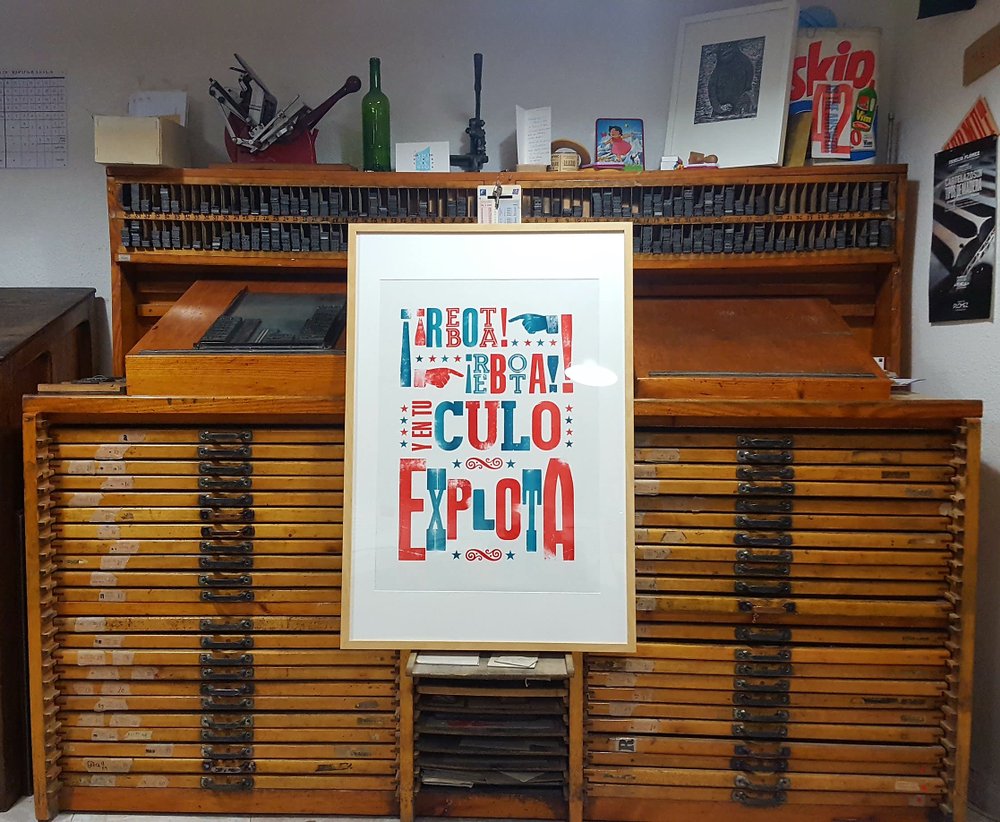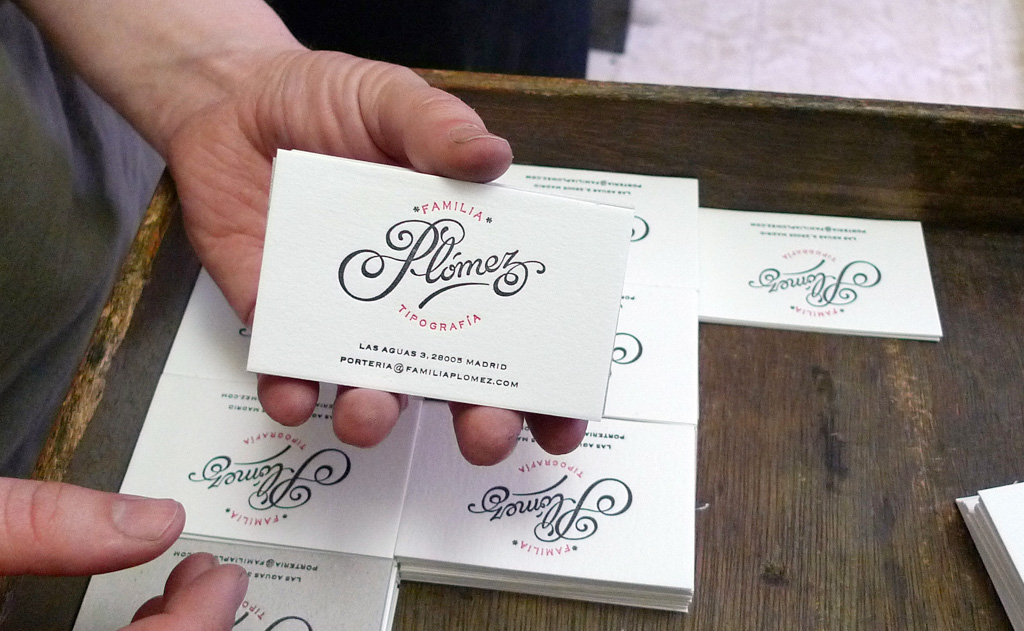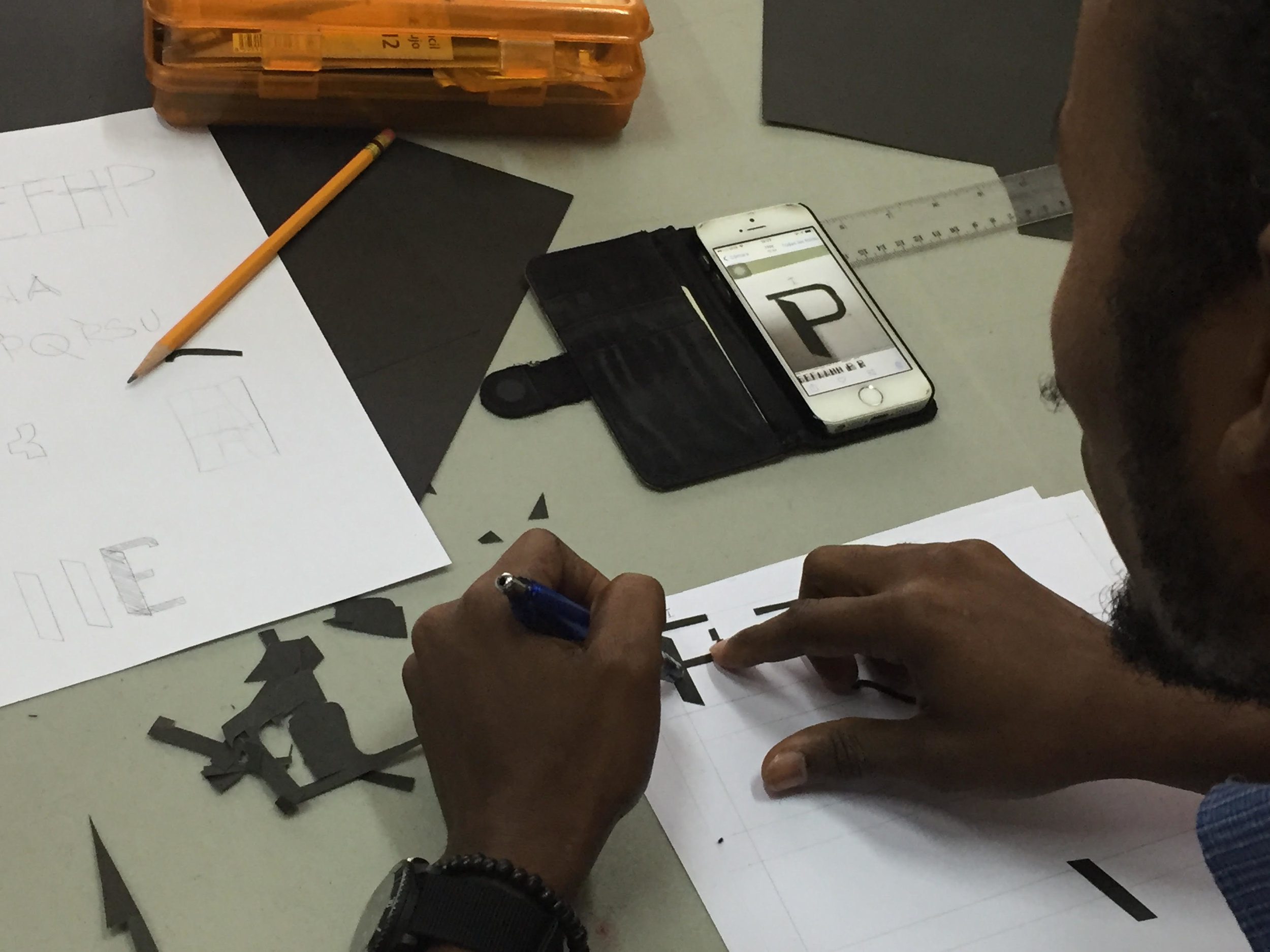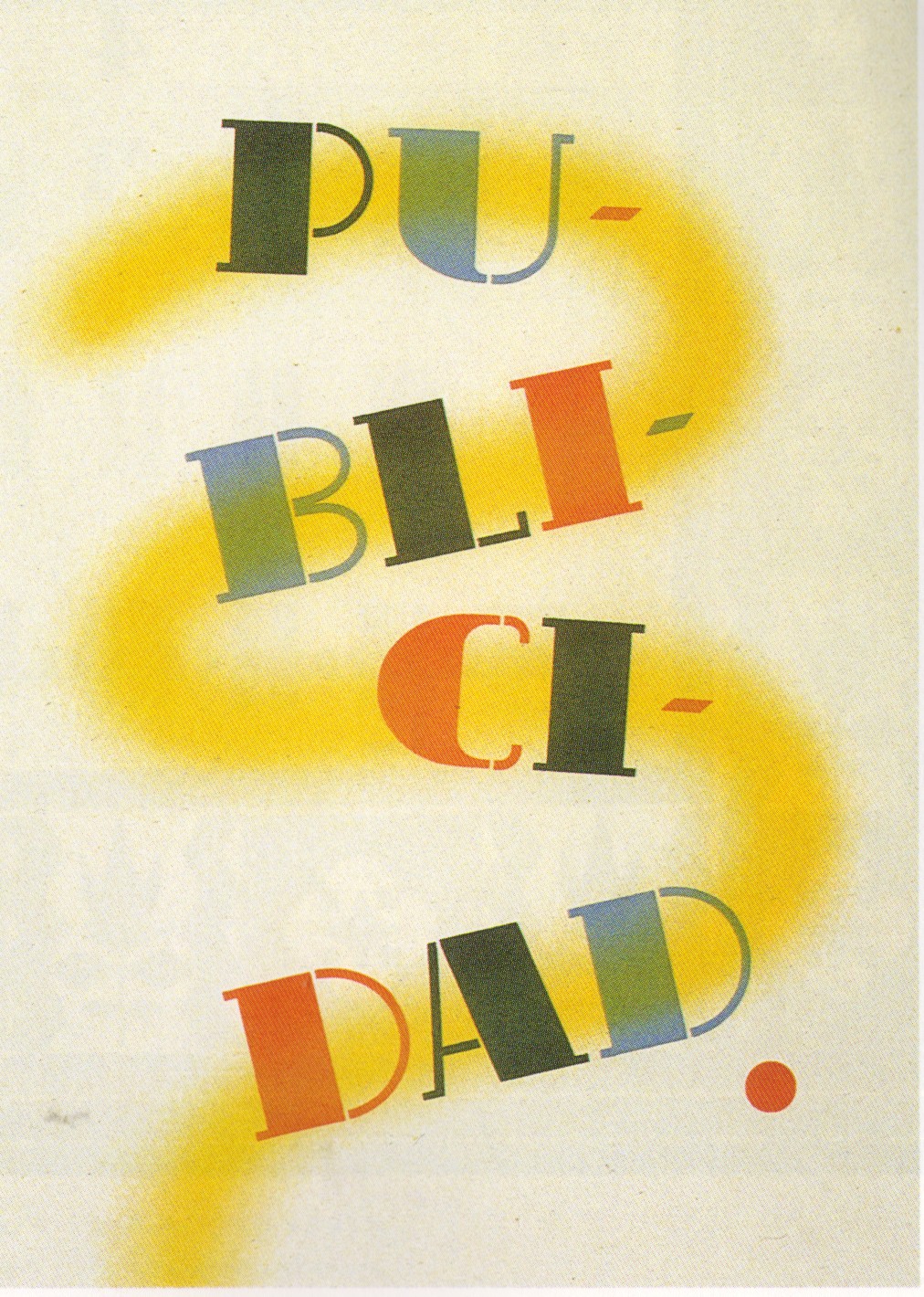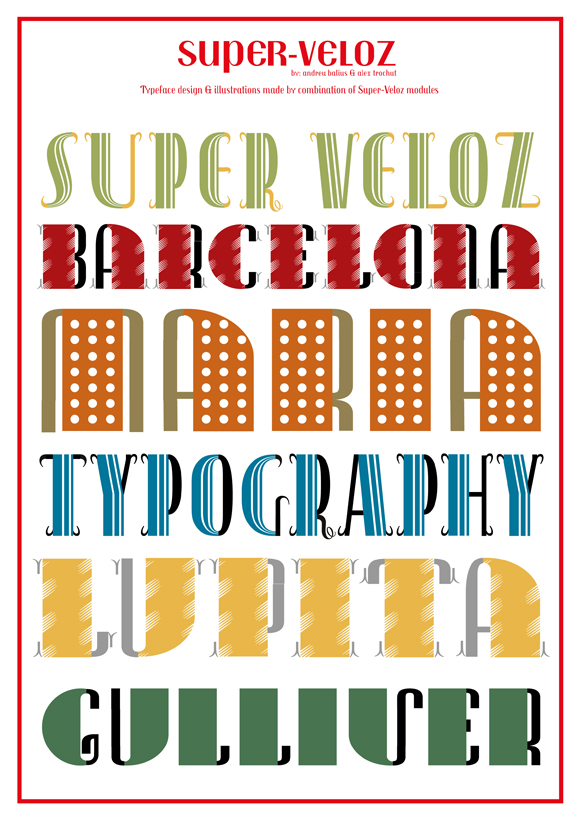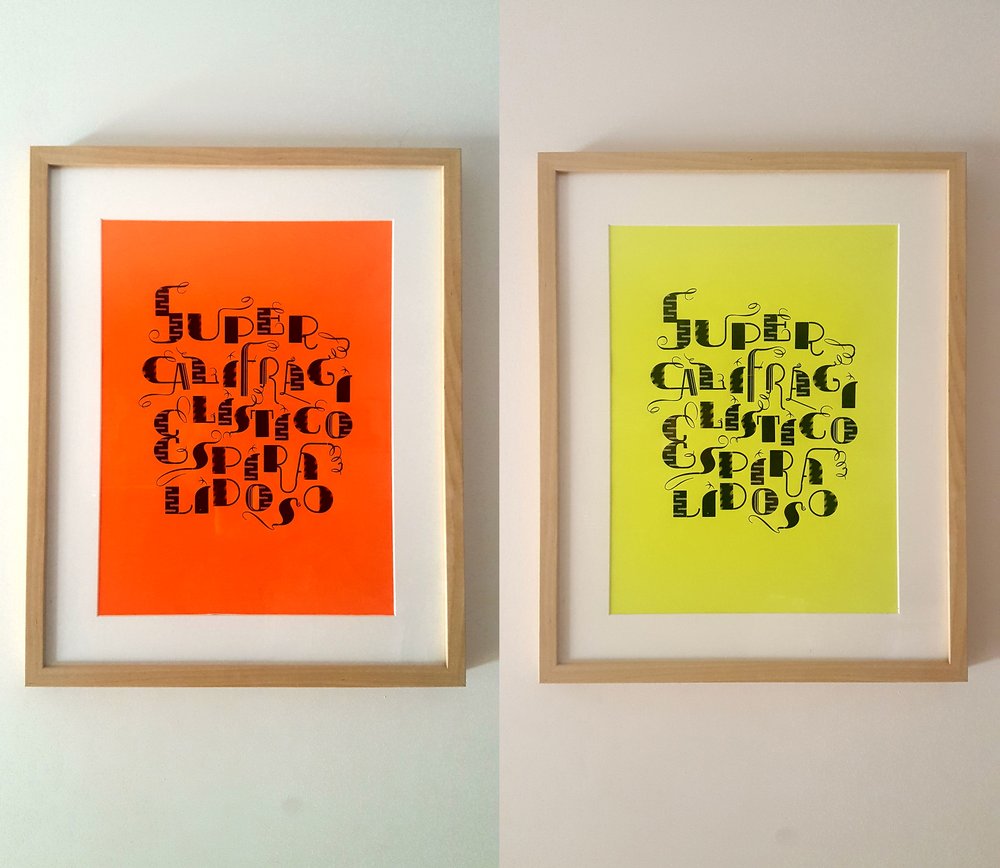
Interview with Roberto Gamonal
If there were such a thing as typographic pen pals, Roberto Gamonal and I would be prime examples.
What started with an online order question has led to a continued long-distance conversation between two type-lovers brought together by a mutual love for Spanish Civil War typography. Curious about his work and his involvement in Santo Tipo, I sent Roberto, a Madrid-based designer and letterpress printer, a few questions; his answers below in both Spanish and English.
ESPAÑOL
Háblame de ti, de tu práctica de diseño y de la tipografía familiar Plómez.
Soy profesor de Diseño, Edición y Tipografía en la Universidad Complutense de Madrid y soy diseñador editorial. Estoy especializado en diseño de publicaciones. Así que mi principal materia prima es la tipografía.
Me gustan las letras por su forma y por su contenido. Las letras del alfabeto me parecen el dibujo más perfecto que jamás ha hecho el ser humano.
También formo parte de Familia Plómez, una asociación cultural cuyo objetivo es preservar las técnicas de composición e impresión artesanales con tipos móviles. Tenemos un taller de imprenta donde damos un uso actualizado de un material antiguo rescatado de viejas imprentas. Principalmente producimos carteles porque es el formato más expresivo para potenciar el poder visual de la tipografía.
ENGLISH
Tell me about yourself, your design practice and La Familia Plomez.
I am a professor of design, publishing, and typography and the University Complutense of Madrid, and I am an editorial designer. I specialize in the design of publications. So, my primary material is typography.
I like letters for their form and their meaning. Letters of the alphabet seem to me to be the most perfect drawing ever made by a man.
Also, I form part of Familia Plomez, a cultural association whose objective is to preserves the artisan composition and printing techniques of movable type. We have a printing workshop where we provide an up-to-date use of old material rescued from old printing presses. We primarily produce posters because it’s the most expressive format to show the visual power of typography.
How and when did you get into Letterpress?
I began to letterpress from a didactic perspective. To work with movable type is the best way to learn about current typography. To compose text with lead type helps you learn concepts that ordinarily happen inadvertently like, white space, line, and paragraphs. Touching it and being able to see it in a physical and analogical format makes these abstract ideas better understood.
From where you do draw inspiration for letterpress?
From music, books, conversations with my friends, other designers, posters, signs I see on the street… I always walk looking up watching signs and one day I'm going to hit a street lamp. :)
Cómo y cuándo empezaste letterpress?
Mi acercamiento al letterpress fue desde una perspectiva didáctica. Trabajar con los tipos móviles me parece la mejor manera de entender la tipografía actual. Componer un texto con tipos de plomo te ayuda a entender conceptos que en el ordenador pasan inadvertidos como el espacio en blanco, la línea o el párrafo. Tocarlo y poder verlo en un formato físico y analógico hace que estas ideas abstractas se entiendan mejor.
De dónde sacas inspiración para letterpress?
Pues de la música, de los libros, de conversaciones con amigos, de otros diseñadores, de los carteles y los rótulos que veo por la calle... Siempre paseo mirando hacia arriba viendo letreros y un día me voy a chocar con una farola :)
SANTO TIPO
What is Santo Tipo? How did you become involved?
Santo Tipo es the Typography Week of Santo Domingo. A conference in which typography, calligraphy and lettering are strengthened, as well as editorial design. This is realized in the form of conferences, workshops and debate panels. It allows an exchange of knowledge and experiences in addition to showcasing really interesting work being done by Dominican designers.
The idea began as a joint proposal with a former Dominican student who studied with us, obtaining a master's degree in Editorial Design in Madrid: Marova (https://www.instagram.com/marovita/). Thanks to the support of the Cultural Center of Spain in Santo Domingo, we were able to put this exciting project underway.
Que es Santo Tipo? ¿Cómo te involucraste?
Santo Tipo es la Semana Tipográfica de Santo Domingo. Un encuentro en el que se potencia la tipografía, la caligrafía y el lettering, además del diseño editorial. Se realizan conferencias, talleres, mesas de debate y exposiciones. Permite un intercambiar de conocimientos y experiencias además de conocer trabajos muy interesantes que están realizando los diseñadores dominicanos.
La idea nació de una propuesta conjunta con una antigua alumna dominicana que estudió con nosotros un máster de Diseño Editorial en Madrid: Marova (https://www.instagram.com/marovita/). Gracias al apoyo del Centro Cultural de España en Santo Domingo pudimos poner en marcha este proyecto tan ilusionante.
Marova, at center, teaching a lettering workshop for Fun Packed Moments. Image Courtesy: Fun Packed Moments http://shopfpm.com/acerca-de-fun-packed-moments/
Talk to me about your stencil workshop. Why do you think stencils are a good way to create letterforms?
One of the workshops that we proposed for Santo Tipo was a small introductory course on the construction of the letter. It was an approach to sketch letters in an analog form and it was addressed from two points of view: the module and the stroke. Working with the module, I thought that the most useful tools would be to use stencils as a limited and predefined form. I allowed for the creation of an alphabetic system with few elements, but these elements can be combined almost infinitely and you can create multiple forms.
What other tools and methods do you use when creating letters?
I prefer analog tools to pixel and vectors: Wood and lead type, calligraphy pens, pencils, pens, felt pens. I love ink.
How can designers of the world get involved with Santo Tipo 2018?
We still do not know how we are going to make the follow-up edition or which guests are going to participate. But, we do want to publicize it on social networks with contributions from other designers with the words "Santo Type" made with any technique and/or tool.
Háblame del taller de plantillas. ¿Por qué elige plantillas para crear formas letras?
Uno de los talleres que se propusieron en Santo Tipo fue un pequeño curso de Introducción a la construcción de la letra. Se trataba de un acercamiento al boceto de letras de forma analógica y se abordaba desde dos puntos de vista: el módulo y el trazo. Para trabajar el módulo, me pareció que la herramienta más útil era usar plantillas con formas limitadas y predefinidas. Esto permite crear un sistema alfabético con pocos elementos, pero estos elementos se combinan de forma casi infinita y puedes crear múltiples formas.
¿Qué otras herramientas o metodos usas cuando creas letras?
Prefiero las herramientas análogicas al pixel y al vector: tipos de madera y de plomo, plumas caligráficas, lapiceros, bolígrafos, rotuladores. Me gusta la tinta.
¿Cómo disenadores del mundo pueden involucrarse en Santo Tipo 2018?
Aún no sabemos cómo vamos a hacer la siguiente edición ni qué invitados van a participar. Queremos publicar en las redes sociales las aportaciones de otros diseñadores con las palabras "Santo Tipo" realizadas con cualquier técnica y herramienta.
Below, conference goers use LetterMaker and other stencils to create their own unique alphabets.
SUPER TIPO VELOZ
Recently, you posted an image of Super Tipo Veloz on Instagram. I am so jealous! Super Tipo Veloz was a huge inspiration for me when making LetterMaker.
Tell me about working with Super Tipo Veloz. What challenges did it present? What joys?
Super Tipo Veloz is a brilliant invention. I think that the type is very intelligent, and moreover, beautiful. It mixes logical, module construction with expressive calligraphy. It was typography created in an era of scarcity of typographic material in Spain after the Civil War. It allowed printers to create typographic illustrations without having to make an engraving or drawing. But it’s name is deceiving. It’s not super fast (Super Veloz), to work with it is very, very slow. Its composition is complicated by the large number of spaces it needs to adjust. See Roberto's lock-up on press here.
Still, we’ve managed to do several things and the result is spectacular, fun and cool.
Recientemente, publicaste una imagen del Super Tipp Veloz en Instagram. Estoy muy celoso Super rápido tipo fue una gran inspiración para mí al crear LetterMaker.
Háblame sobre trabajando con Super Tipo Veloz. Que desafíos presenta? Que alegrias?
El Super Tipo Veloz es un invento genial. Me parece una tipografía muy inteligente, además de bella. Mezcla la racionalidad de la construcción modular con la expresividad caligráfica. Se trataba de una tipografía creada en una época de escasez de material tipográfico en España después de la Guerra Civil. Permitía a los impresores crear ilustraciones tipográficas sin necesidad de hacer un grabado o un dibujo. Pero su nombre engaña. No es Super Veloz, trabajar con ella es muy, muy lento. Su composición es complicada por la gran cantidad de espacios que necesita para ajustar. Puedes ver el "lock-up" de Roberto aquí.
Aún así hemos conseguido hacer varias cosas y el resultado es espectacular, divertido y fresco.
C3gR6obWMAA3SgJ copy.png
"[Super Veloz] allowed  printers to create  typographic  illustrations without  having to make an  engraving or drawing.  But, its name is  deceiving. It's not  super fast to work  with, it is very,
very slow."
To my surprise, I received one of Roberto’s Super Tipo Veloz posters in the mail. The typography is set with immense skill and the impression is perfect. Bravo!
Finalmente, cual es tu letra favorita? Porque?
Me gusta mucho la letra "R" y en cuanto a tipografías, me sorprendo con las más clásicas como Garamond o Bodoni. Me imagino las limitaciones de la época en las que fueron creadas y me resulta asombroso que se hayan creado letras tan perfectas. Para mí, las mayúsculas de la letra Futura son lo más cercano a la perfección.
And finally, what is your favorite letter? Why?
I really like the letter “R” and in terms of typography, I am surprised by many more classics like Garamond or Bodoni. I imagine the limitations of the time when it was created and I find it astonishing that such perfect letters have been created. For me, the capital letters of Futura are the closest to perfection.